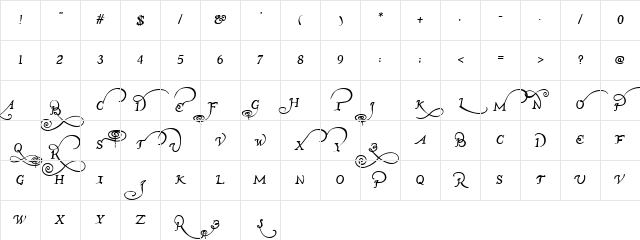
John Speed Regular
Design Context for John Speed
John Speed is a composed and adaptable typeface that performs quietly and consistently across a wide range of design contexts.